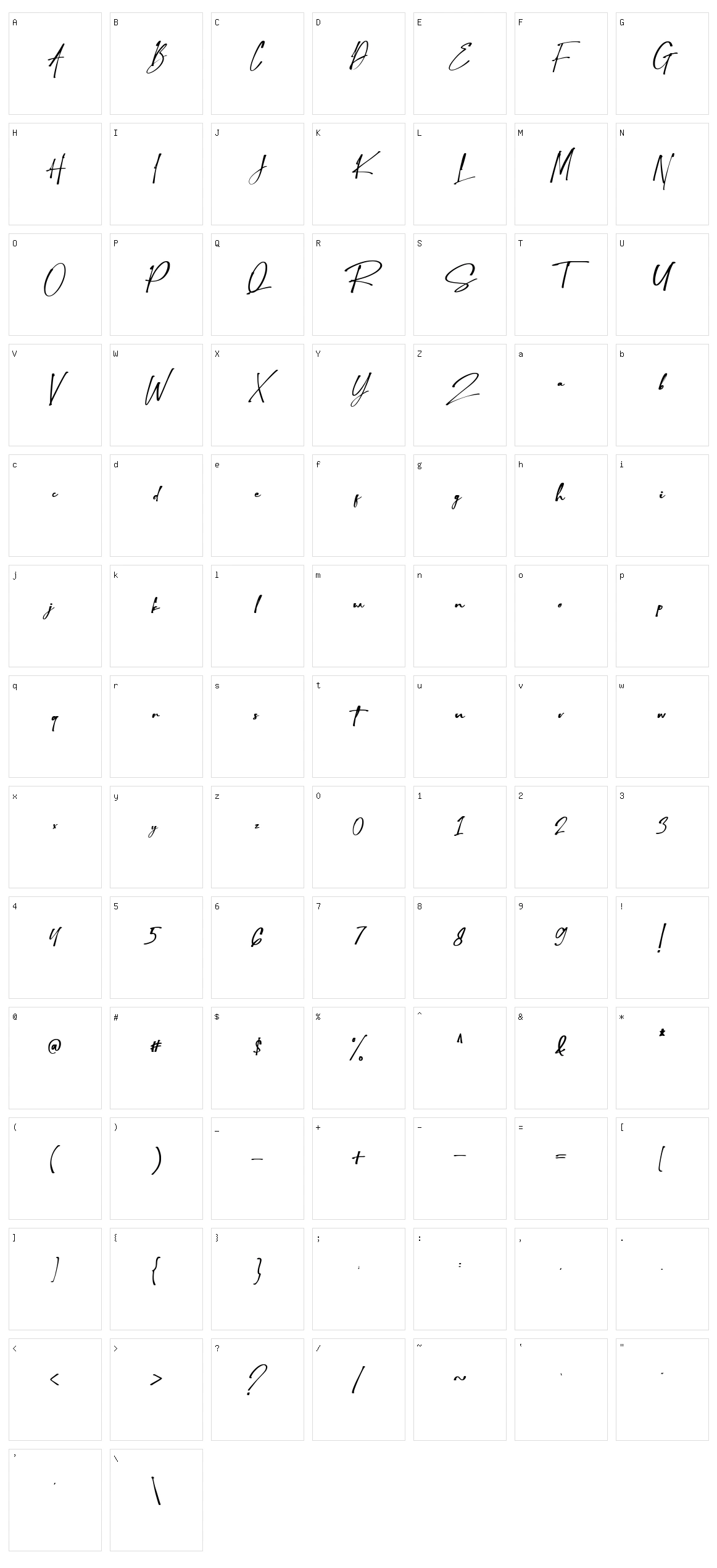
The free font Hudson is carefully designed by alphArtype, showcasing a thoughtful balance of creativity and usability and falls under the Script font style. When you download the ZIP file, it contains only 32.93 KB of font files, making it lightweight and quick to download. Please review the license details below to understand permitted usage and distribution rights. If license information is not available, we recommend using this font for personal projects only or contacting the author directly for commercial usage permissions.